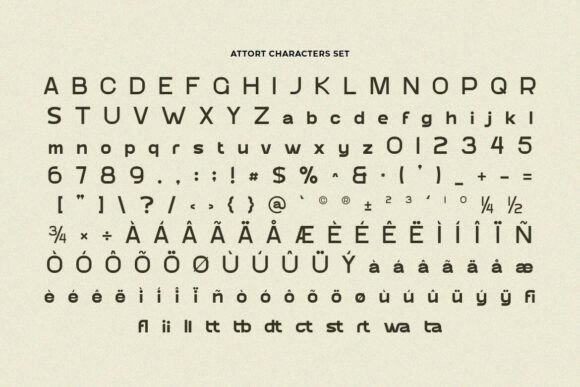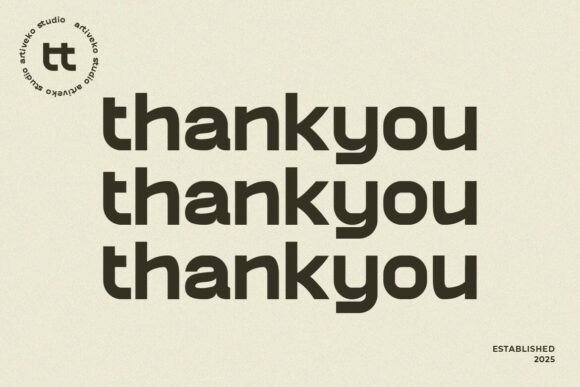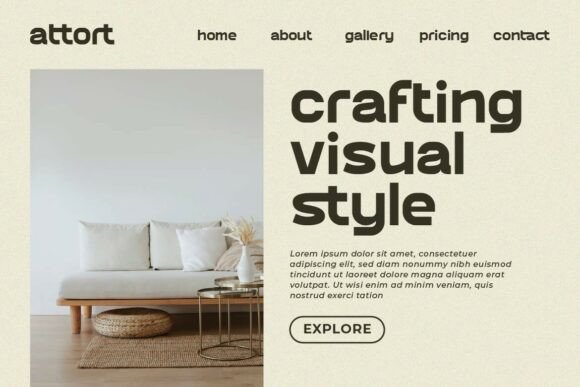
Introduction to Attort Font
Attort is a bold and versatile sans serif typeface crafted with precision for modern branding.
With its clean geometric shapes, sharp edges, and well-balanced proportions, Attort exudes confidence and professionalism — making it the perfect choice for standout logos, corporate identities, packaging, posters, and digital content .
Key Features of Attort Font
Why Choose Attort Font?